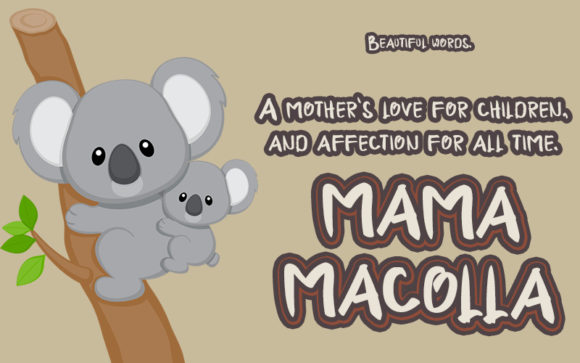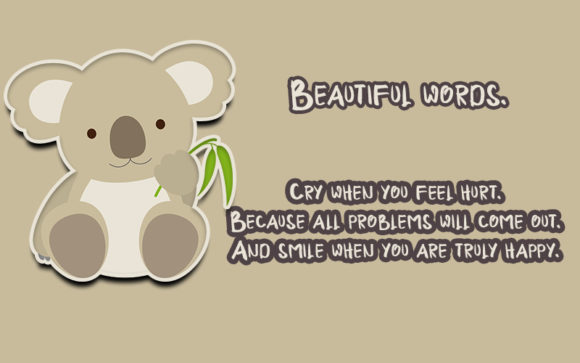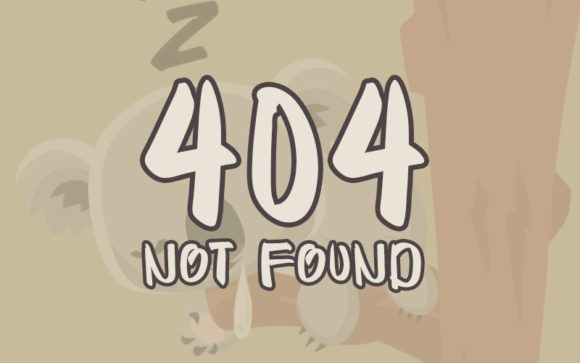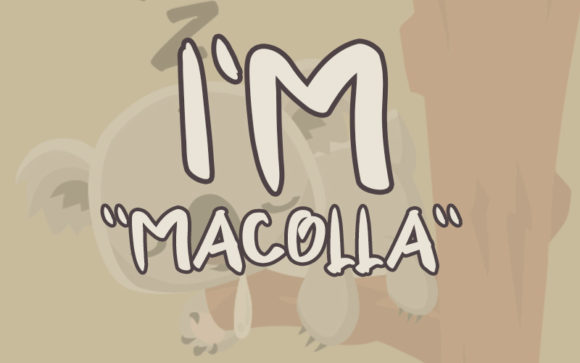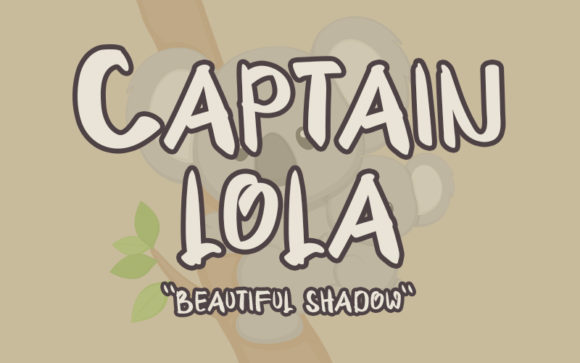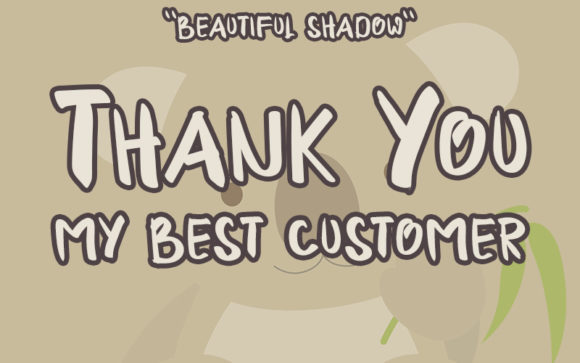
Introduction to Lazy Macolla Font
Have you ever stared at a blank canvas, trying to decide on the perfect font to bring your creative project to life? We’ve all been there – the blank page staring back at us, taunting us with its emptiness. But what if we told you that the solution to your design dilemma lies in the Lazy Macolla Font?
This charming handwritten font is more than just a pretty face; it’s a design resource that can elevate your creative ideas into stunning works of art. With its friendly feel and high-quality design, the Lazy Macolla Font is the perfect addition to any project, whether you’re looking for Instagram-worthy fonts or calligraphy scripts for your DIY masterpiece.
Key Features of Lazy Macolla Font
- High-quality font with a unique, hand-drawn design that adds a touch of personality to any project.
- Perfect for creatives looking for a distinctive, Lazy Macolla Font style to elevate their design projects and stand out from the crowd.
Honest Review: Lazy Macolla Font
I recently had the chance to work with the Lazy Macolla Font, and I must say it’s a great addition to any designer’s toolkit. This high-quality font is perfect for creative projects that require a touch of elegance and sophistication.
- ✨ The Lazy Macolla Font is incredibly versatile and can be used for a wide range of applications, from headings to body text.
- ✨ The transparent background option allows for seamless integration with any design element.
- ⚠️ The Lazy Macolla Font is not ideal for projects that require bold or dramatic typography.
- ⚠️ The font may not be suitable for use in extremely small sizes, as it can become difficult to read.
Overall, I’m impressed with the Lazy Macolla Font. It’s a solid design resource that can elevate any creative project. With its high-quality design and transparent background, it’s a great choice for designers who want to add a touch of sophistication to their work.
Tips for Getting the Most Out of Lazy Macolla Font
For the best results, use the Lazy Macolla Font with a transparent background to create a clean and professional look. You can also use the font in combination with other design elements to create a unique and eye-catching design.
Common Use Cases for Lazy Macolla Font
The Lazy Macolla Font is perfect for a variety of design projects, including social media graphics, presentations, logos, and branding materials. It’s also great for use in free download design resources and creative projects.